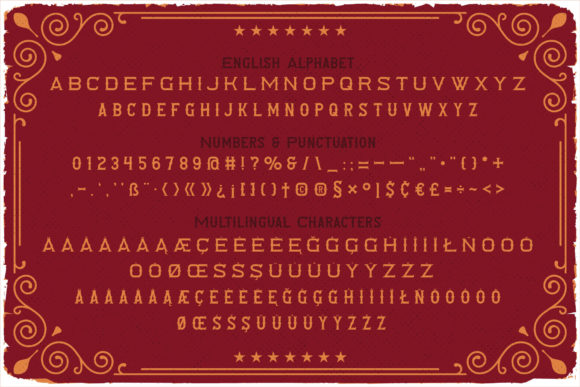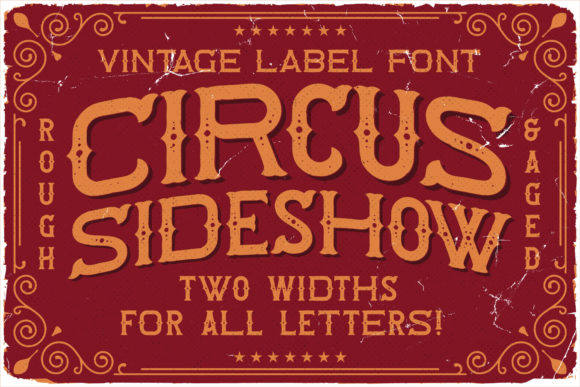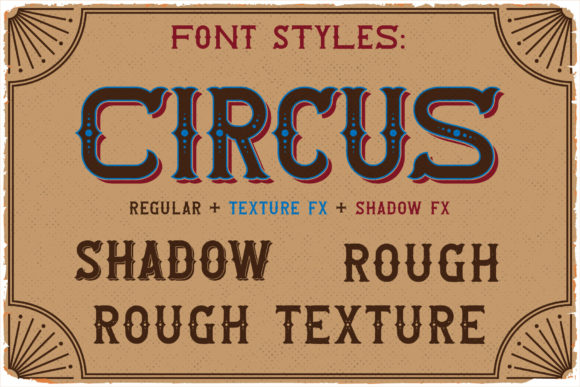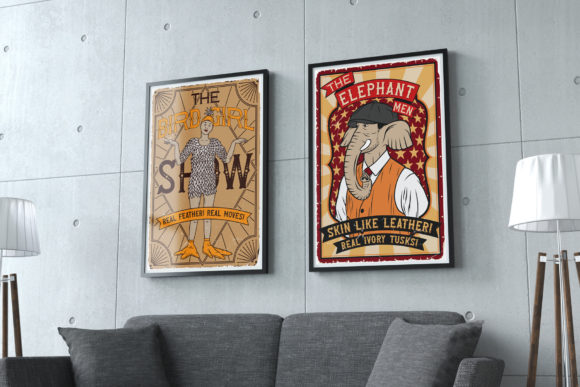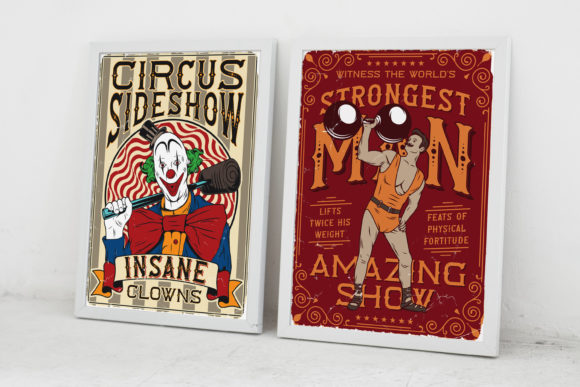
Circus Sideshow Font: The Ultimate Choice for Western-Inspired Designs
Are you a designer, crafter, or DIY enthusiast looking for a font that can add a touch of vintage charm to your projects? Look no further than the Circus Sideshow font. This chic and stylish display font is perfect for creating western-inspired designs that are sure to capture attention. In this article, we’ll take a closer look at the Circus Sideshow font, its features, and how you can use it to elevate your designs.
What is Circus Sideshow Font?
Circus Sideshow is a beautifully crafted display font that is inspired by the classic circus posters of the past. Its unique and stylish design makes it perfect for creating eye-catching headings, titles, and graphics for a variety of projects. Whether you’re working on a digital design, crafting a greeting card, or creating a presentation, this font is sure to add a touch of vintage charm to your work.
Key Features of Circus Sideshow Font
So, what makes Circus Sideshow font so special? Here are some of its key features:
- Western-Inspired Design: The Circus Sideshow font is inspired by the classic western-style posters and signs of the past. Its unique design makes it perfect for creating cowboy-themed designs, vintage-inspired graphics, and more.
- Chic and Stylish: This font is not just about nostalgia; it’s also incredibly stylish and chic. Its bold lines, curvaceous shapes, and ornate details make it a standout choice for any design project.
- Highly Versatile: The Circus Sideshow font is incredibly versatile and can be used for a wide range of projects, including digital designs, crafts, presentations, and more.
- Easy to Read: Despite its ornate design, the Circus Sideshow font is surprisingly easy to read, making it perfect for creating headings, titles, and other graphics that need to be noticed.
How to Use Circus Sideshow Font
So, how can you use the Circus Sideshow font in your designs? Here are a few ideas to get you started:
- Crafting: Add a touch of vintage charm to your crafting projects, such as scrapbooking, card making, and DIY decorations.
- Digital Design: Use the Circus Sideshow font to create eye-catching graphics, social media posts, and website headers.
- Presentations: Add some western flair to your presentations, reports, and other business documents.
- Greeting Cards: Create unique and stylish greeting cards for special occasions, such as birthdays, holidays, and more.
Tips for Using Circus Sideshow Font
Here are a few tips to keep in mind when using the Circus Sideshow font:
- Use it Sparingly: While the Circus Sideshow font is incredibly stylish, it can be overwhelming if used too much. Use it sparingly to create headings, titles, and other graphics.
- Pair it with Other Fonts: Experiment with pairing the Circus Sideshow font with other fonts to create a unique and stylish look.
- Experiment with Colors: The Circus Sideshow font looks great in a variety of colors, so don’t be afraid to experiment and find the perfect hue for your design.
| Font Name | Circus Sideshow Font |
| Author | Vozzy Vintage Fonts And Graphics |
In conclusion, the Circus Sideshow font is a must-have for designers, crafters, and DIY enthusiasts looking to add a touch of vintage charm to their projects. Its unique and stylish design makes it perfect for creating western-inspired designs that are sure to capture attention. With its versatility, ease of use, and stylish design, it’s no wonder that the Circus Sideshow font is quickly becoming a favorite among designers and crafters.